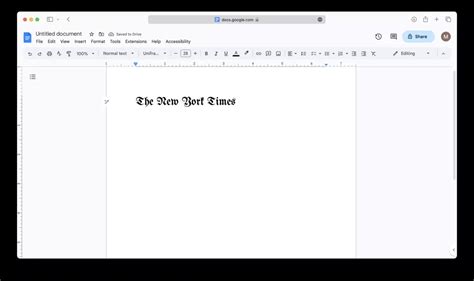
New York Times Font On Google Docs: Easy Guide
New York Times Font on Google Docs: Easy Guide
Hey guys! Ever scroll through The New York Times and think, “Man, I love that font!” You know, that classic, sophisticated look that just screams authority and good journalism? Well, guess what? You can totally bring that iconic New York Times font vibe right into your Google Docs. It’s not some secret, exclusive club; it’s totally accessible, and I’m here to show you exactly how to do it. Getting that premium feel for your documents is easier than you might think, and it can seriously elevate your writing, whether it’s for school, work, or just your personal blog. We’re talking about making your Google Docs look like they just stepped out of a world-class newspaper office, and trust me, it’s a game-changer.
Unveiling The New York Times Font
So, what is the New York Times font, you ask? For years, The New York Times has primarily used Times New Roman . Yep, that’s the one! It’s a classic serif typeface, designed by Stanley Morison and commissioned by The Times of London in 1931. It’s known for its readability, elegance, and a certain gravitas that makes it a staple in publishing. While the NYT has experimented with different styles and variations over the years, particularly for headlines and specific sections, Times New Roman remains its go-to for body text, giving it that instantly recognizable, traditional newspaper feel. It’s a font that conveys seriousness, tradition, and a sense of established credibility. Think about it: every major news story, every in-depth article, often relies on this font to deliver information clearly and authoritatively. It’s not flashy; it’s functional, elegant, and timeless. When you see it, you immediately associate it with quality content and reliable information. This is the font that has graced countless front pages, bringing important news and stories to millions. It’s a testament to its design that it has stood the test of time and remains a symbol of journalistic integrity and classic typography. So, when we talk about the “New York Times font,” we’re generally referring to the timeless appeal and legibility of Times New Roman.
Why Use The New York Times Font in Google Docs?
Now, why would you want to use the New York Times font, specifically Times New Roman, in your Google Docs? Well, besides the obvious cool factor, there are some solid reasons. Firstly, professionalism . Times New Roman is widely considered a professional and formal typeface. Using it can instantly make your Google Doc look more polished and serious, which is fantastic for academic papers, business reports, resumes, or any document where you want to convey a sense of credibility and authority. It’s a font that screams “I mean business” without being overly aggressive. Secondly, readability . This font was designed for long-form reading. Its clear serifs (those little decorative strokes at the ends of letters) help guide the eye, making it easier to read large blocks of text. If you’re writing an essay, a novel, or any document that requires extensive reading, Times New Roman is a superb choice. It’s less likely to cause eye strain compared to some more modern or stylized fonts. Thirdly, universal compatibility . It’s one of the most ubiquitous fonts out there. It’s installed on virtually every computer, ensuring that your document will look the same on almost any device or operating system. You don’t have to worry about sharing your work and having it appear in a different, less appealing font because the recipient doesn’t have it installed. It’s a safe bet for ensuring your formatting stays intact. Lastly, it’s nostalgic and familiar . For many, Times New Roman evokes a sense of tradition and classic print media. It can lend a certain gravitas and a timeless quality to your writing, making it feel more substantial and enduring. It’s the font that has been used in countless books, newspapers, and official documents, so it carries a weight of familiarity and respect. So, whether you’re trying to impress a professor, a potential employer, or just want your personal writing to have that classic editorial flair, Times New Roman is your guy.
Beyond Times New Roman: Exploring Similar Serifs
While Times New Roman is the quintessential New York Times font, the Gray Lady has, at times, used other elegant serif fonts, especially for headlines and specific branding elements. If you’re looking to capture that sophisticated newspaper aesthetic, it’s worth exploring other serif fonts available in Google Docs that echo the classic New York Times feel. These alternatives can offer a slightly different flavor while maintaining that professional and readable quality. Think of them as cousins to Times New Roman, offering a similar vibe but with their own unique charm.
• Garamond: This is a beautiful, old-style serif font that feels incredibly classic and literary. It has a certain lightness and elegance that’s often associated with fine printing and academic works. Garamond is known for its delicate strokes and charming imperfections, giving it a historical feel that’s still very much alive today. It’s less bold than Times New Roman but equally sophisticated, making it a great choice for novels or poetry.
• Playfair Display: If you want something a bit more dramatic and high-contrast, Playfair Display is a fantastic option. It has strong thick and thin transitions, reminiscent of the kind of fonts used in 18th-century printing. This font is particularly striking for headings and titles, giving your document an immediate sense of importance and style. It’s a bit more flamboyant than Times New Roman but equally capable of conveying professionalism.
• EB Garamond: This is a revival of the classic Garamond typeface, meticulously designed to be faithful to the original. It offers a slightly cleaner and more consistent look than some older versions of Garamond, making it an excellent choice for both body text and headings. It provides that timeless, scholarly feel that many associate with classic literature and reputable publications.
Final Thoughts: Elevate Your Google Docs
So there you have it, my friends! Getting that distinguished New York Times font, which is primarily Times New Roman , into your Google Docs is incredibly straightforward because it’s already built-in. We’ve explored why this classic serif font is a powerhouse for professionalism and readability, and how you can easily select it from Google Docs’ font menu. Plus, we’ve ventured into other similar serif fonts like Garamond and Lora if you fancy a slightly different flavor of classic elegance. Remember those key tips on font size, spacing, and consistency to really nail that polished look. Using Times New Roman (or a close cousin) is a fantastic way to add a touch of sophistication and authority to any document, making your writing stand out. It’s a simple change that can have a huge impact on how your work is perceived. So go ahead, give it a try, and make your Google Docs look like they belong on the front page! Happy typing, everyone!